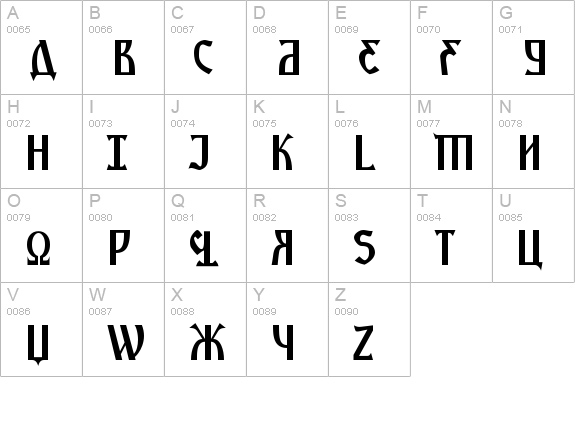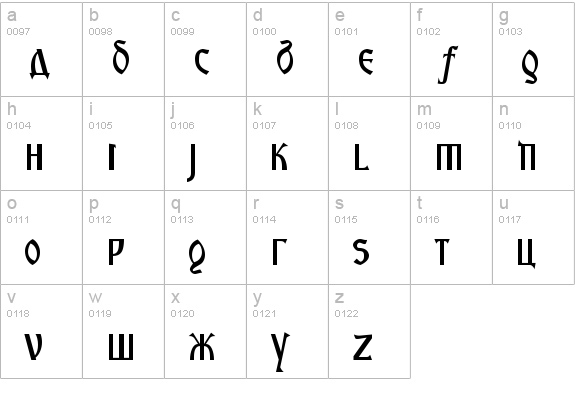
Kremlin Starets Font Details
Introducing Kremlin Starets, a captivating font that effortlessly combines traditional elegance with a modern twist. With its strikingly bold strokes and intricate details, this typeface is sure to leave a lasting impression on any design project. Kremlin Starets exudes an air of regality and sophistication, evoking a sense of timeless charm. Each letter is meticulously crafted, showcasing a perfect balance between sharp angles and graceful curves. The result is a font that commands attention while maintaining a sense of grace and harmony. This versatile font is suitable for a wide range of applications, from branding and advertising to editorial design and packaging. Whether used for headlines, body text, or even as a decorative element, Kremlin Starets adds a touch of class to any project. What sets Kremlin Starets apart is not only its impeccable design but also its accessibility. This font is freely available to download at FontsMarket.com, ensuring that designers from all walks of life can benefit from its beauty and versatility. Now, you can effortlessly elevate your designs without any limitations or restrictions. So, whether you're a seasoned designer looking to add a touch of sophistication to your portfolio or a novice seeking a font that stands out, Kremlin Starets has you covered. Download it today from FontsMarket.com and unlock a world of design possibilities. Let Kremlin Starets be the key to unlocking your creative potential.